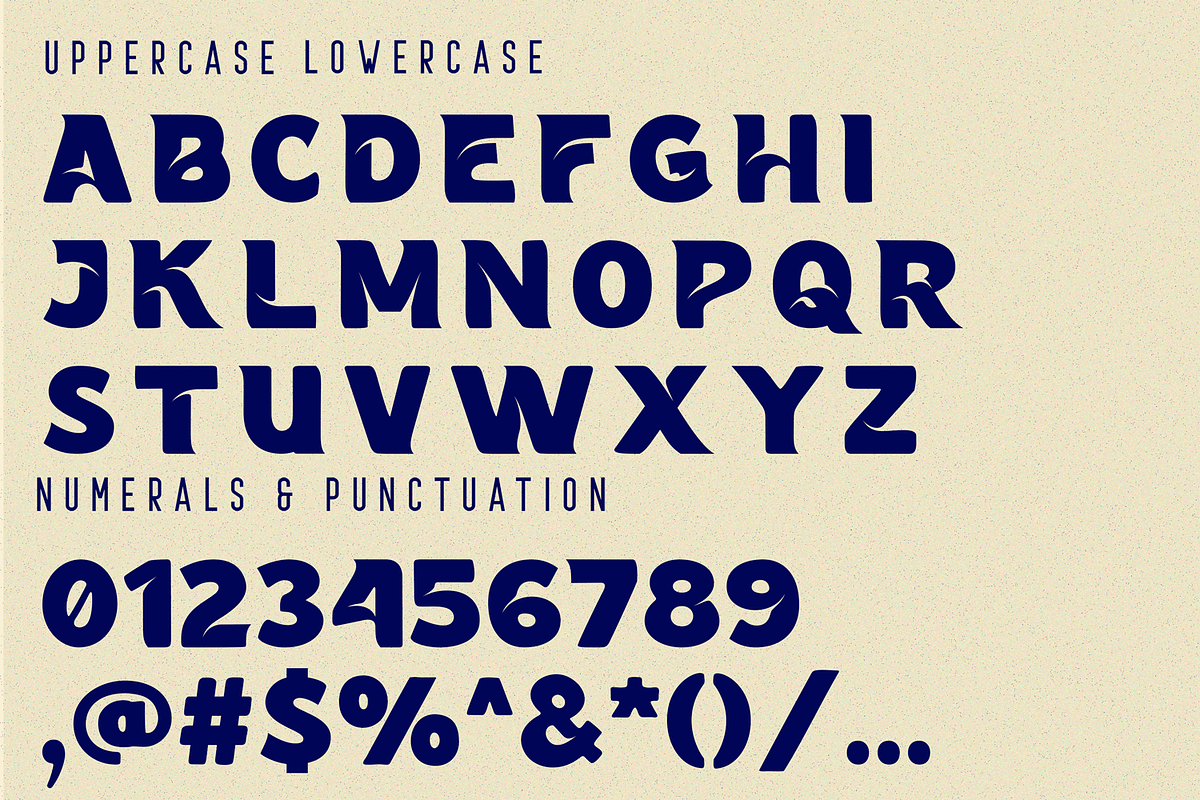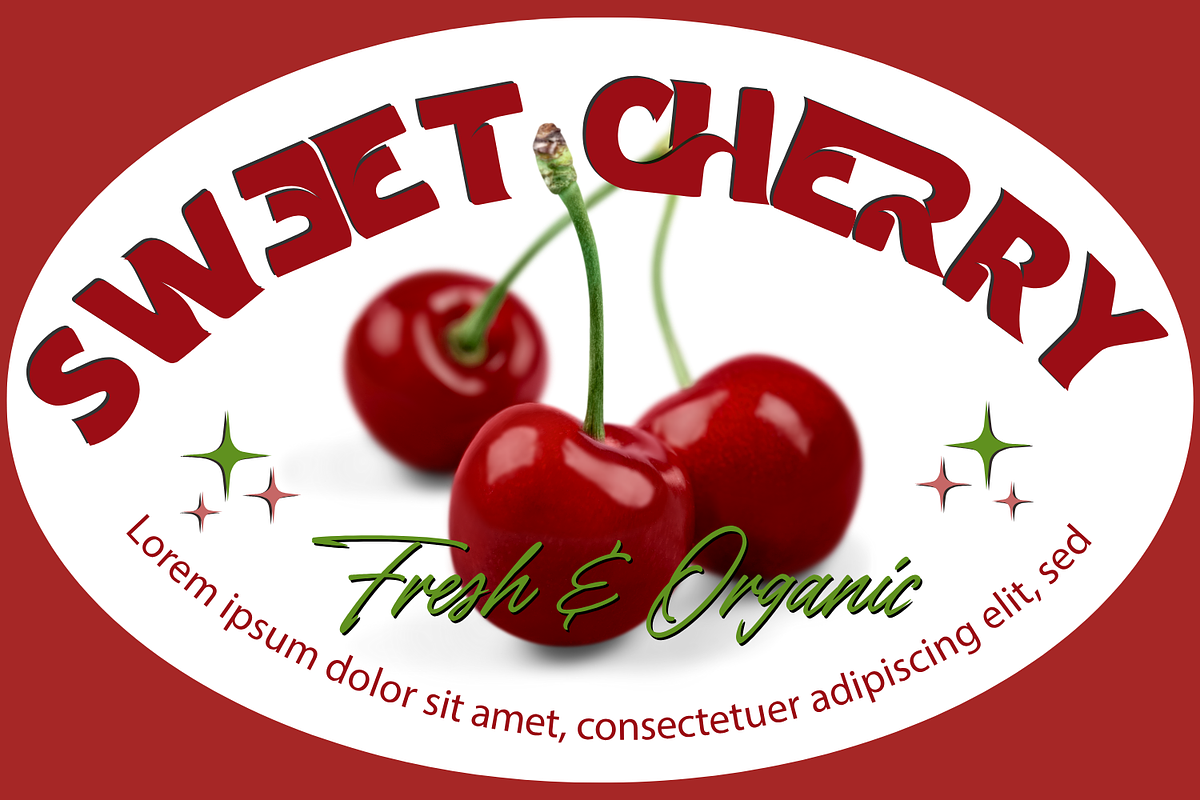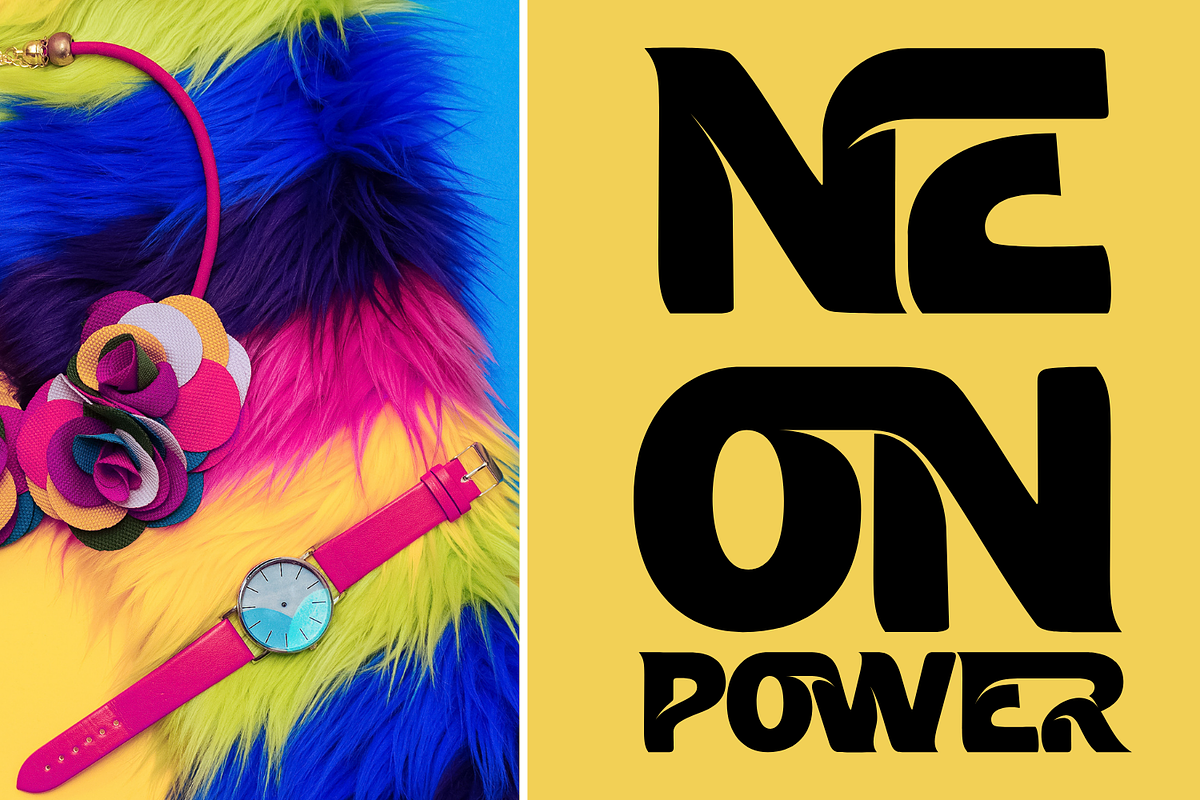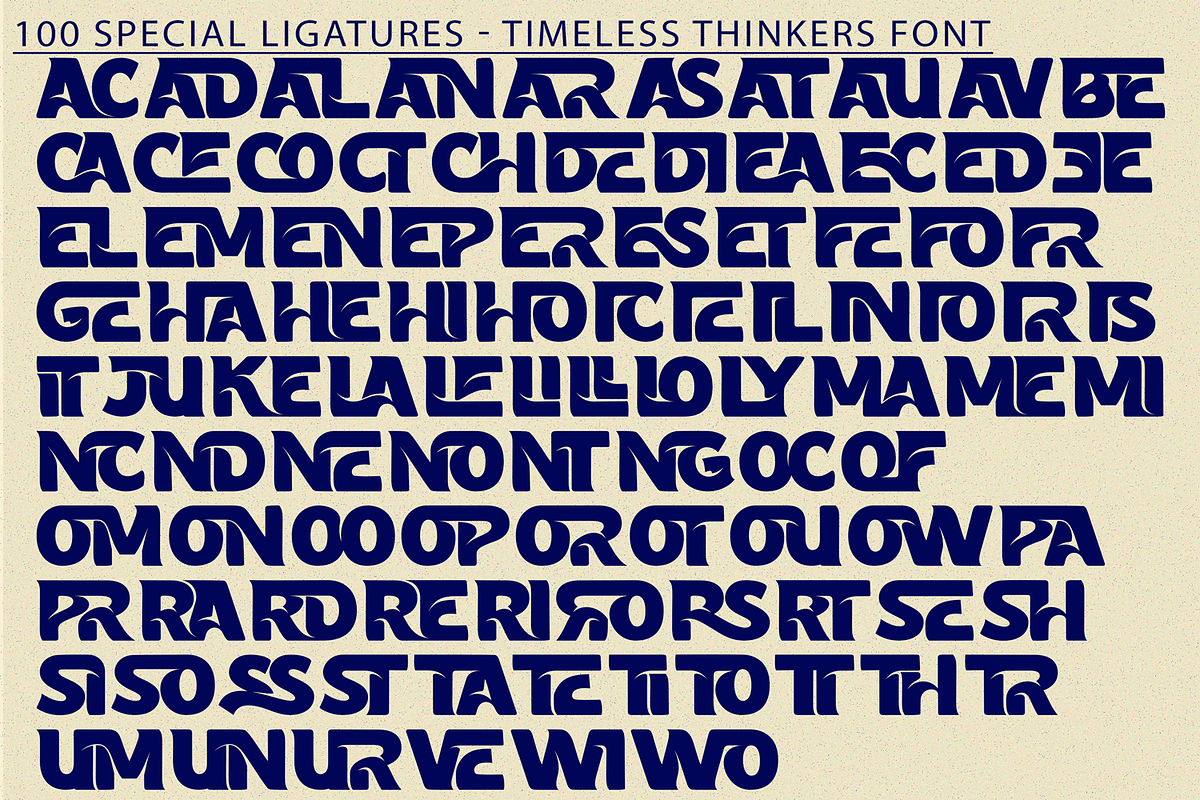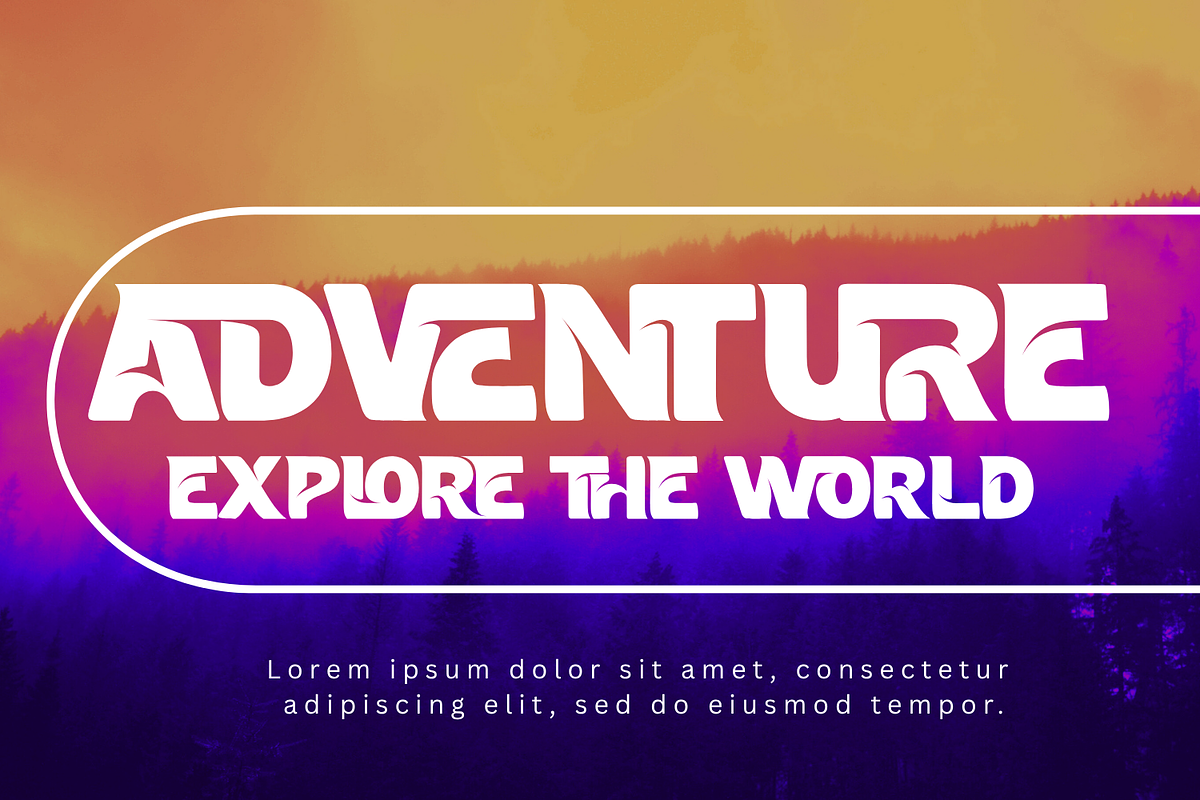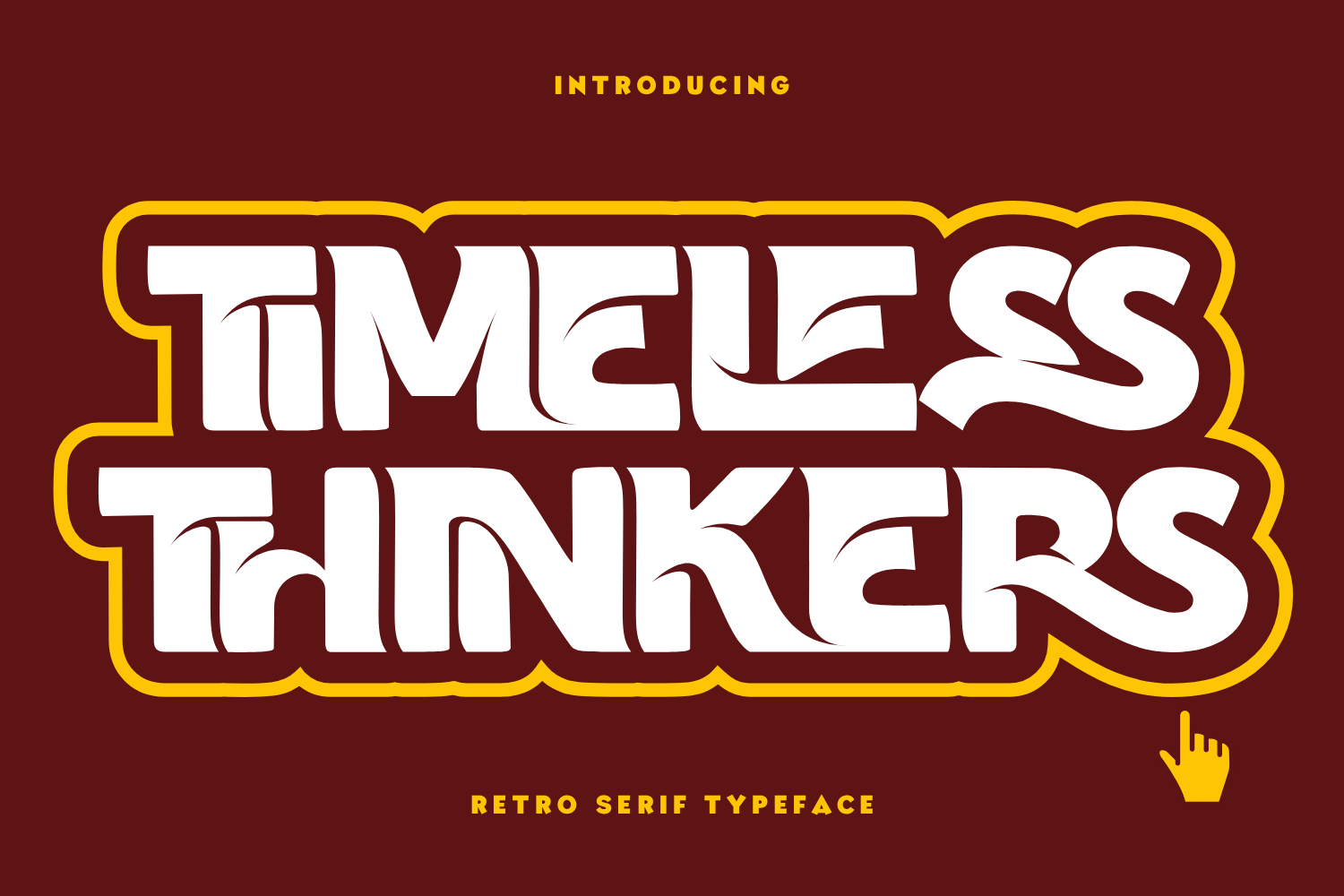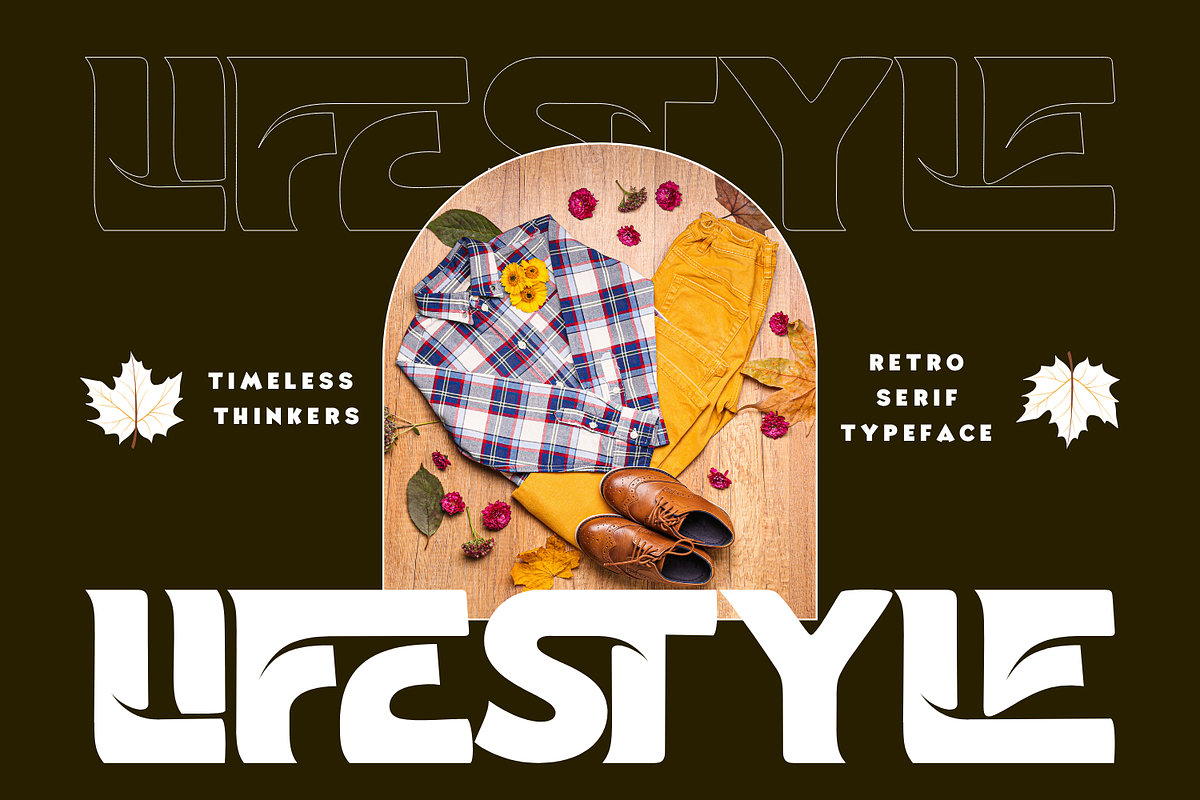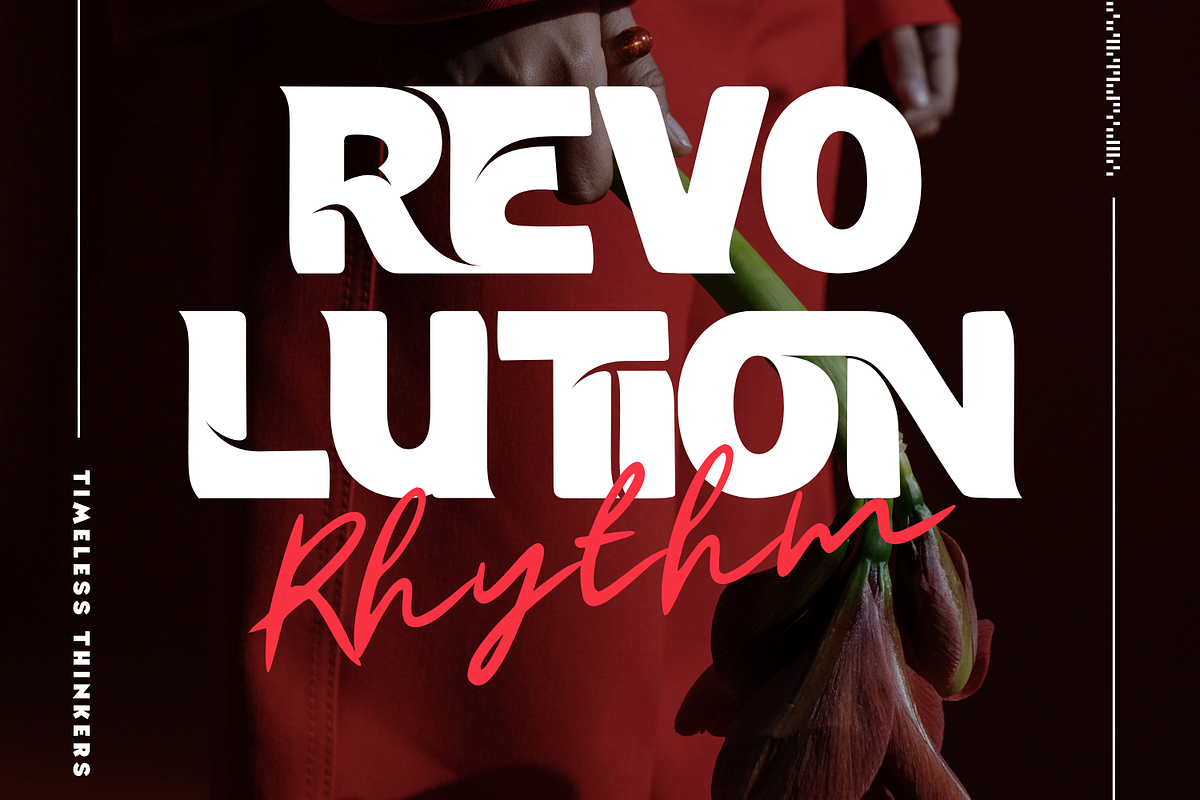
Timeless Thinkers Font
Timeless Thinkers Font – Retro Groovy Display Font, a bold and nostalgic retro display font that dances between funk and freedom. Inspired by the typography of the ’60s and ’70s, this typeface captures the spirit of a timeless groove with thick letterforms, flowing curves, and sharp inner cuts that radiate energy.
Whether you're working on music posters, fashion branding, vintage packaging, or bold headlines, Timeless Thinkers adds a funky twist and unforgettable vibe to your design.
✨ Font Features:
- Uppercase Letters
- 100+ Special Ligatures
- Multilingual Support with Accented Characters
✨ About 100 ligatures combined with Stylistic Alternates Font:
AC AD AL AN AR AS AT AU AV BE CA CE CH CO CT DE DI EA EC ED EE EL EM EN EP ER ES ET FE FO FR GE HA HE HI HO IE IC IL IN IO IR IS IT JU KE LA LE LI LL LO LY MA ME MI NC ND NE NG NO NT NS OC OF OM ON OO OP OR OT OU OW PA PR RA RD RE RI RO RS RT SE SH SI SO SS ST TA TE TH TI TO TR TT UM UN UR VE WI WO